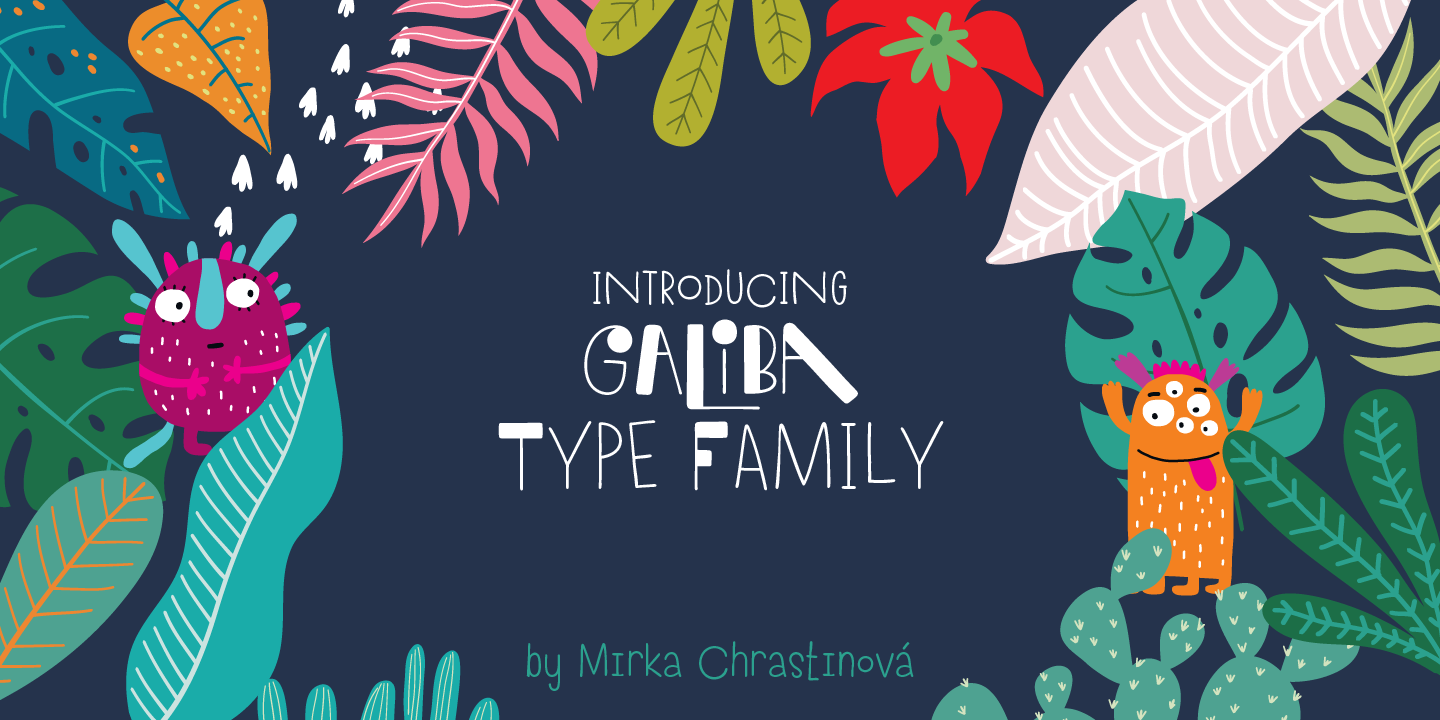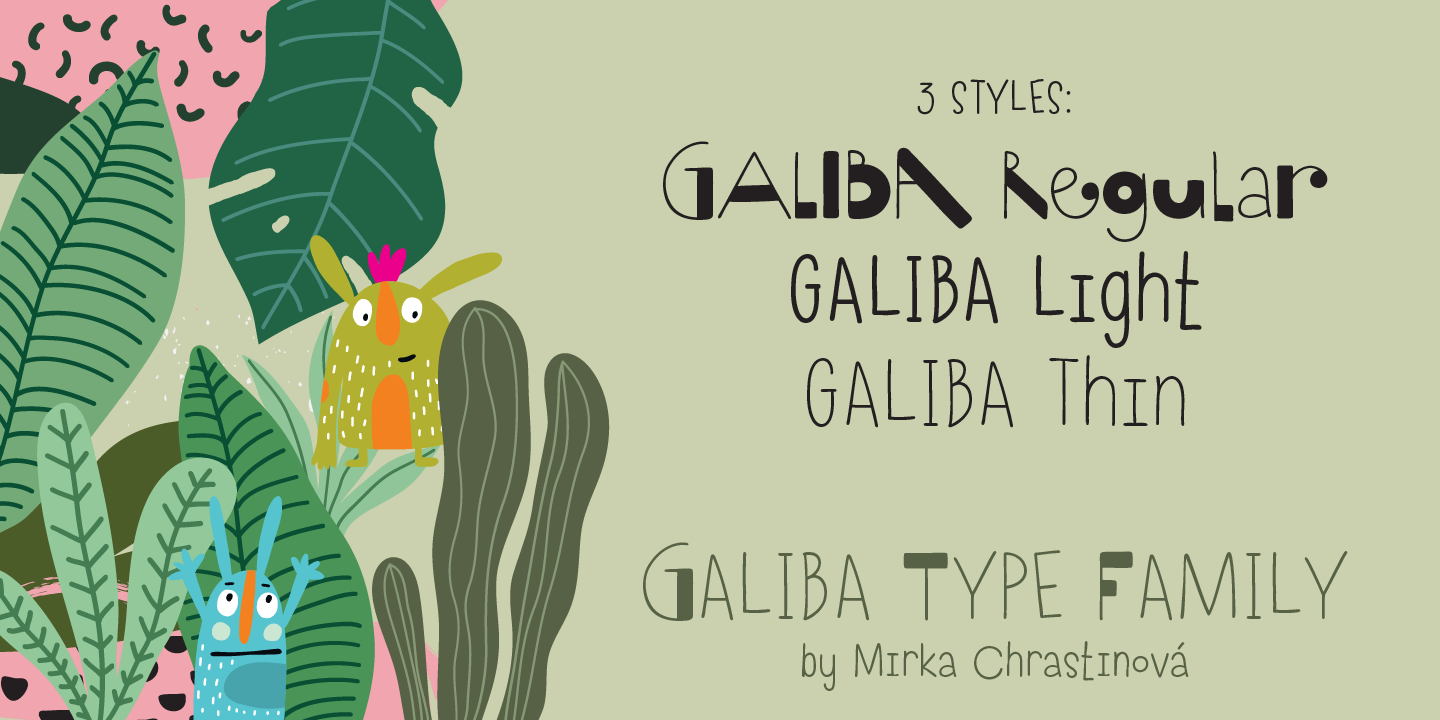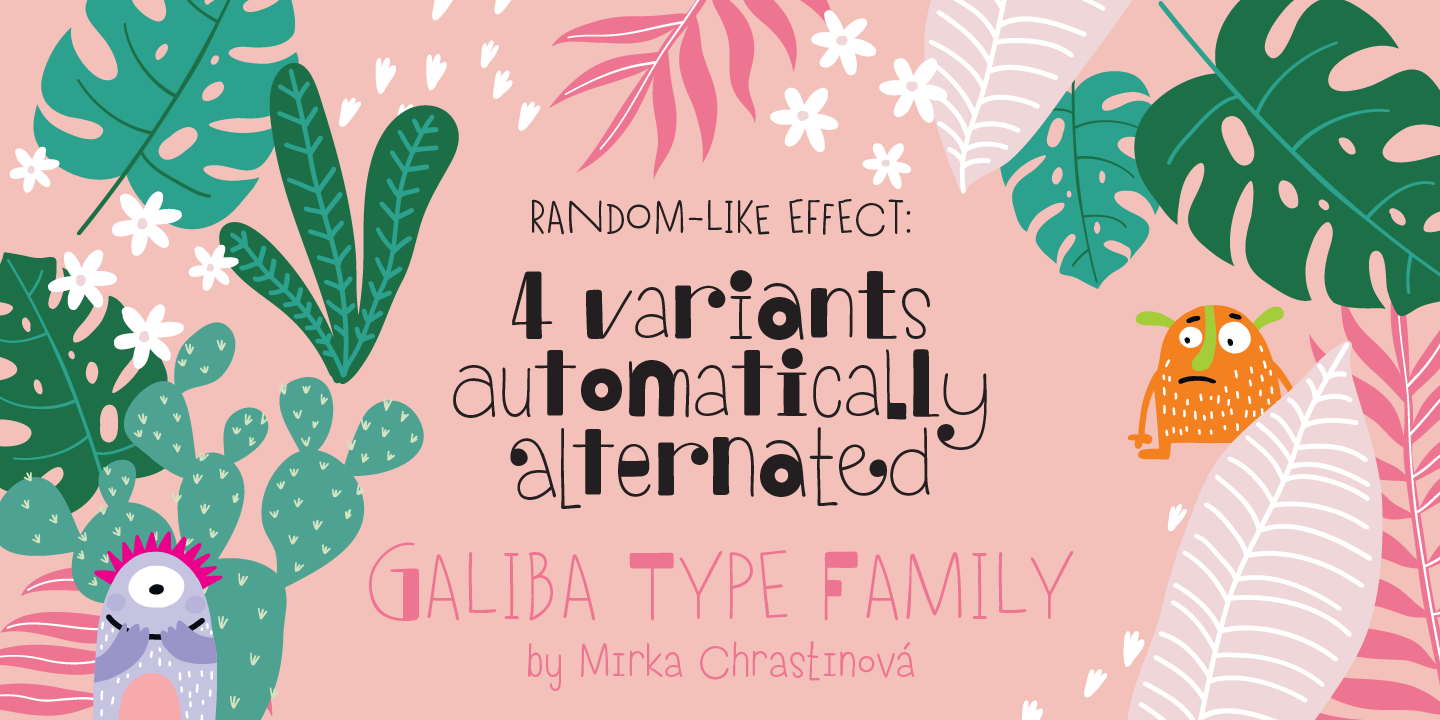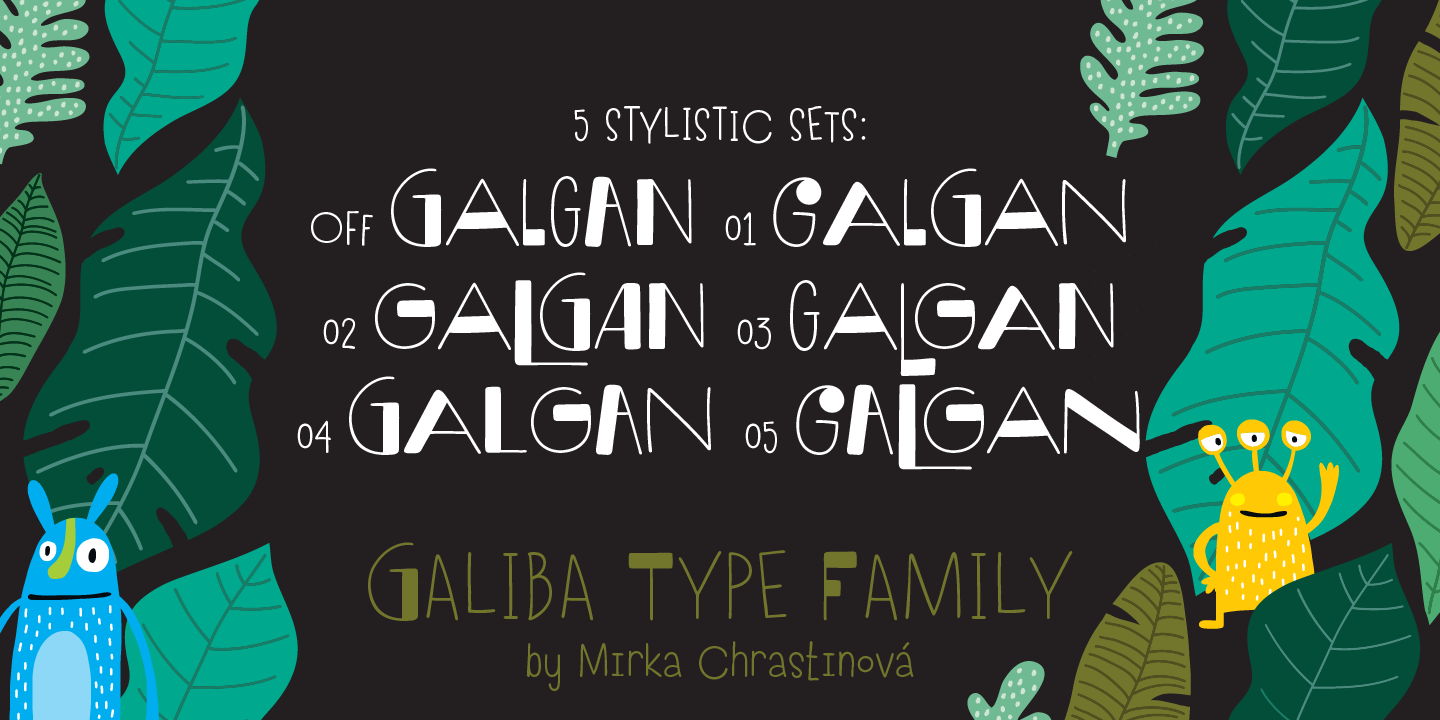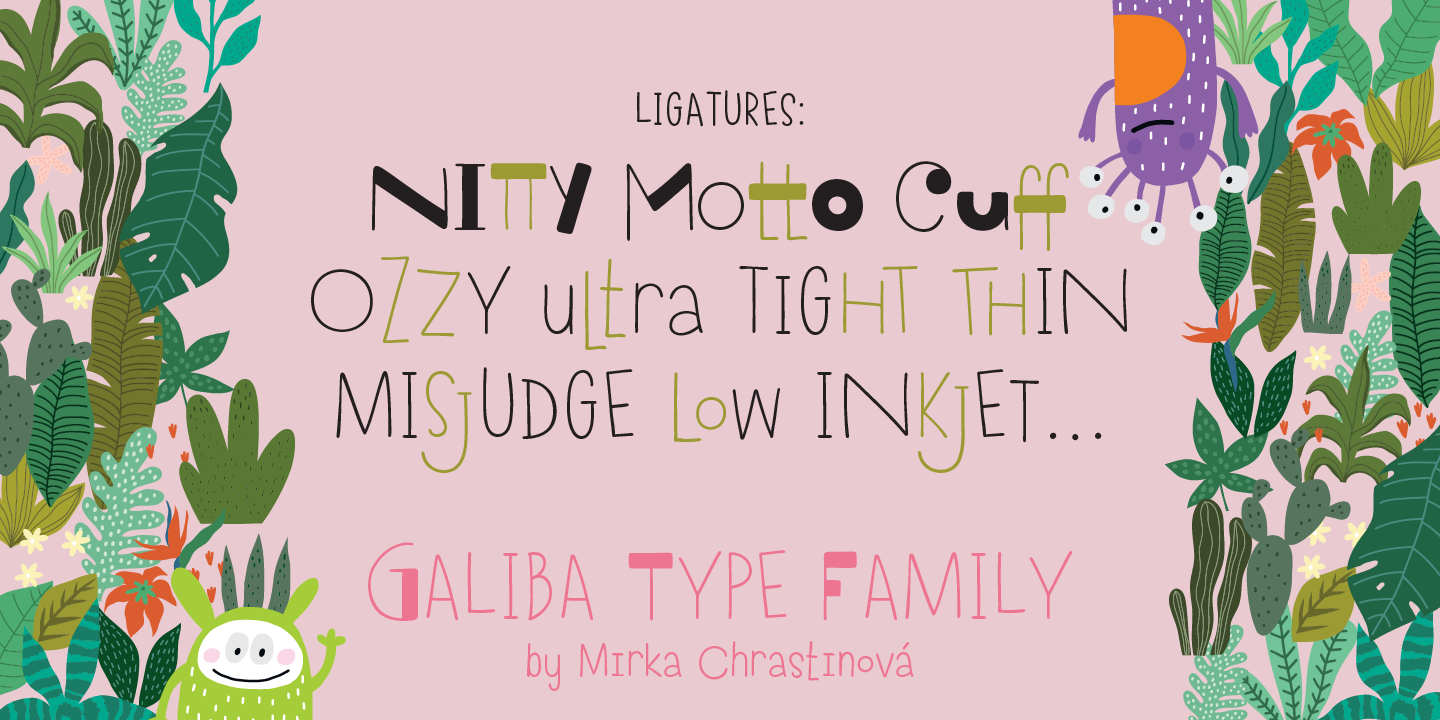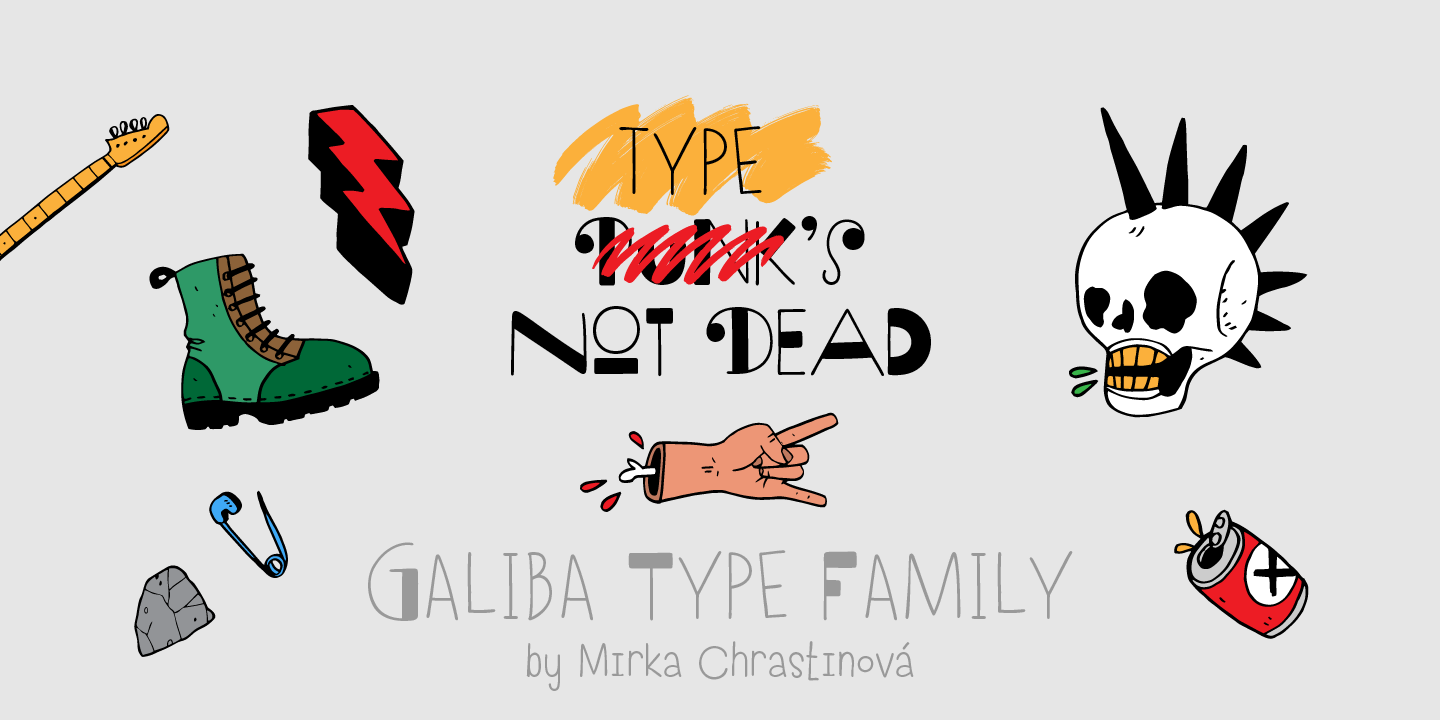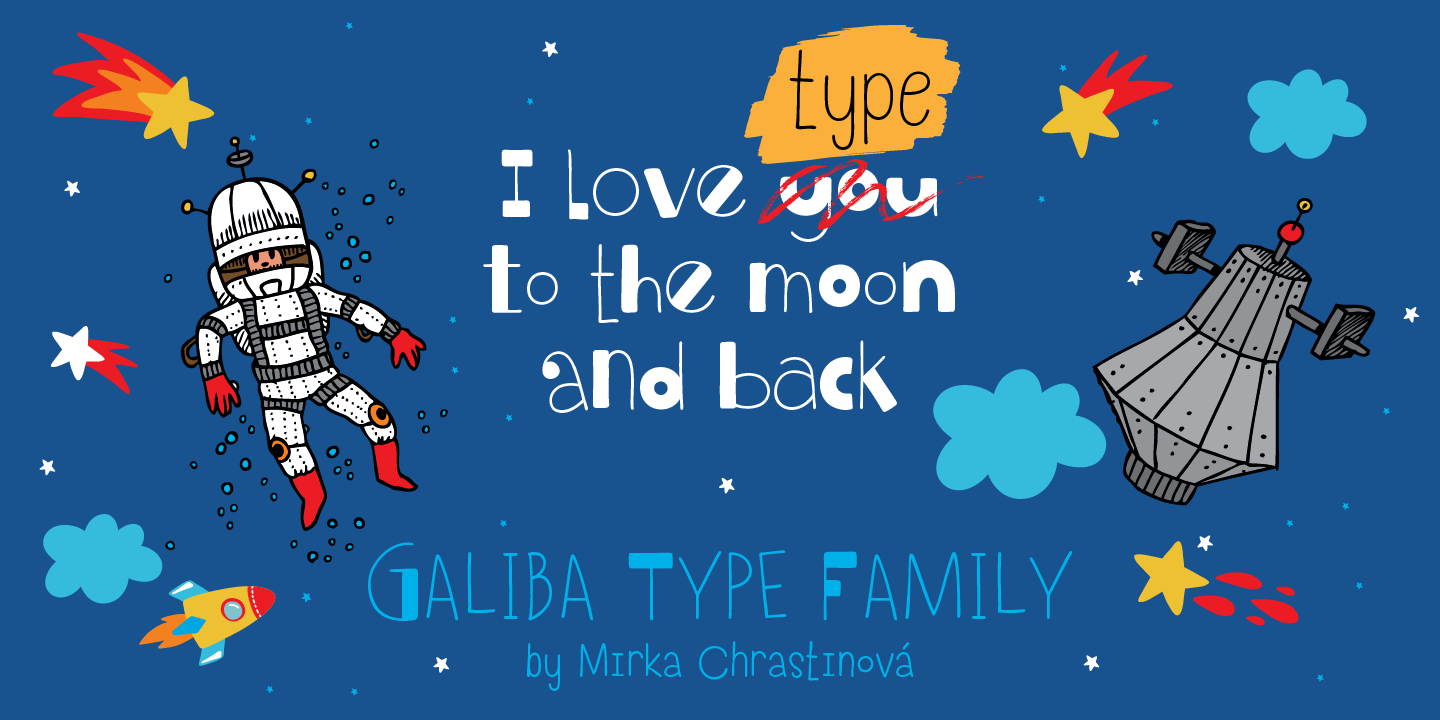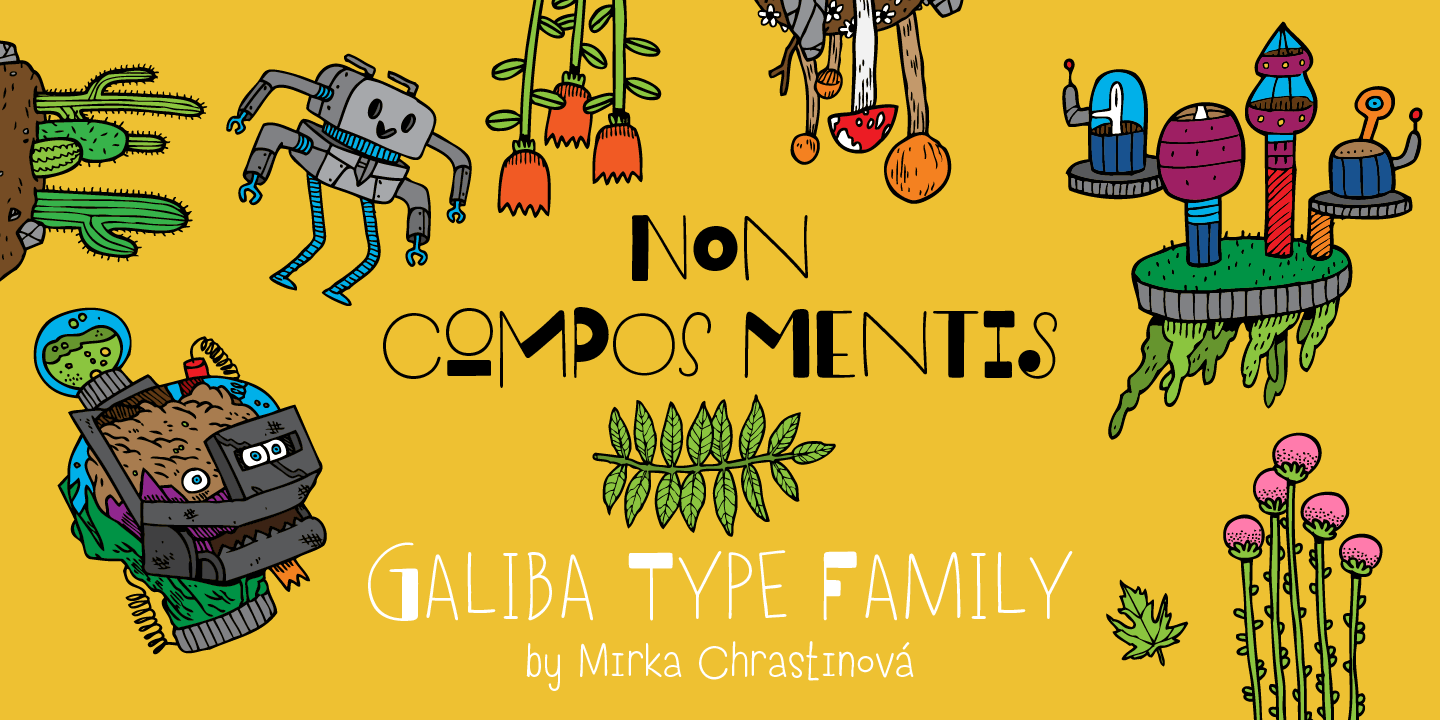
Galiba Family (3 fonts)
Galiba Regular works very well with his small brothers Light and Thin. In addition Galiba Light can be used at smaller size along with the other styles to keep the same line thickness.
To achieve a random-like effect, the regular style is packed with 4 different variants of each glyph, that automatically cycle if stylistic alternates are turned on. Also you can choose from 5 stylistic sets to easily change the look of a given string, or pick alternates by hand.
Not to mention that we've attentively fine-tuned the kerning that’s crucial for this kind of typeface.